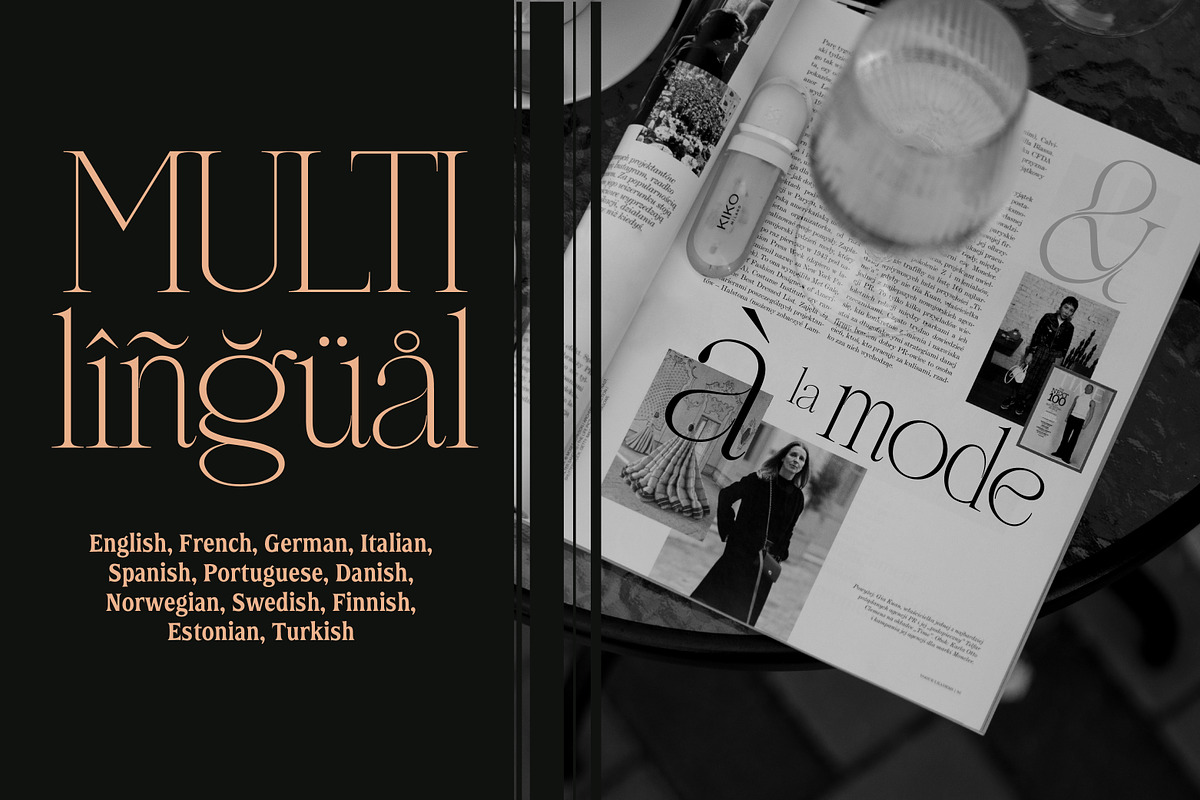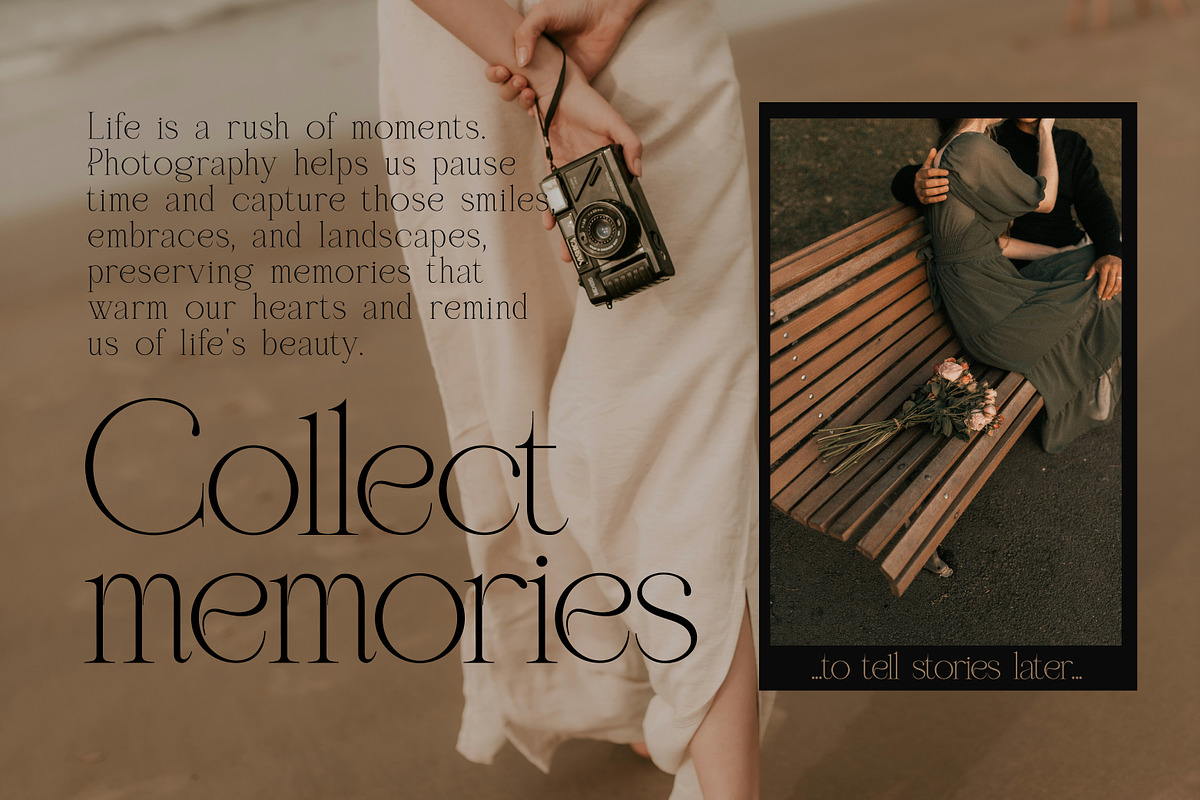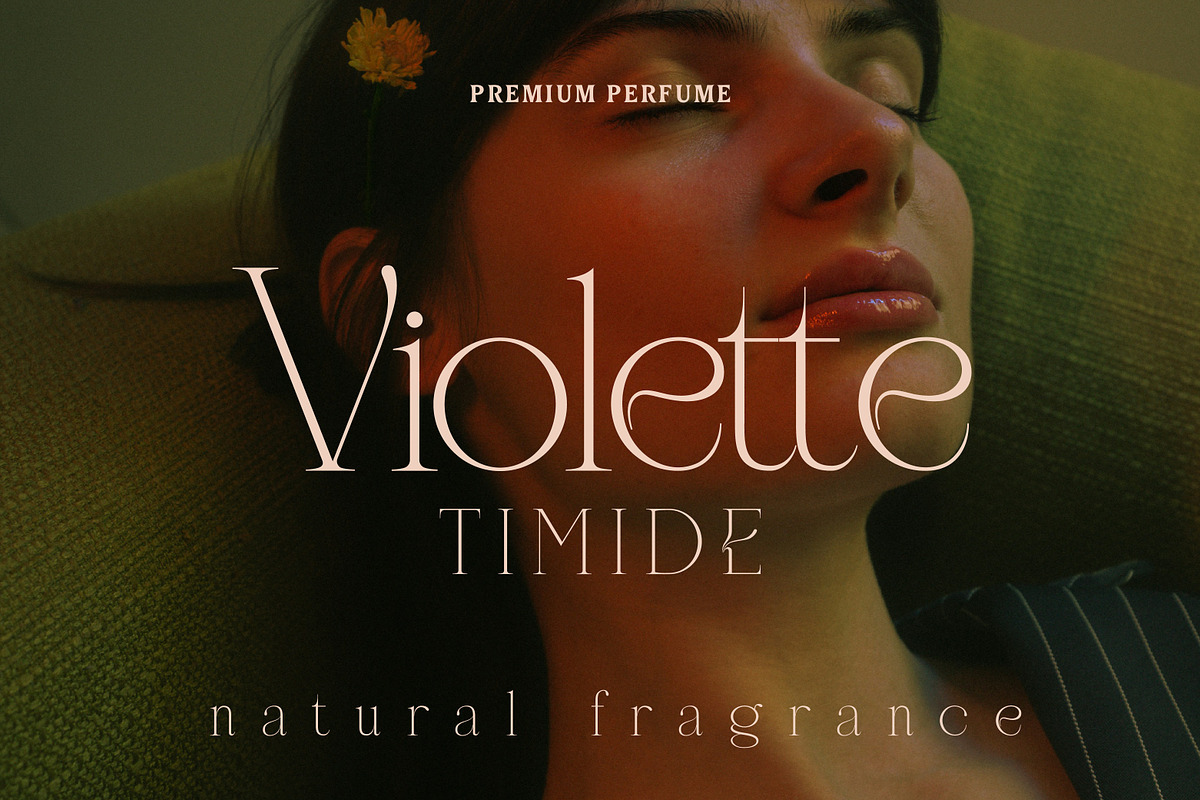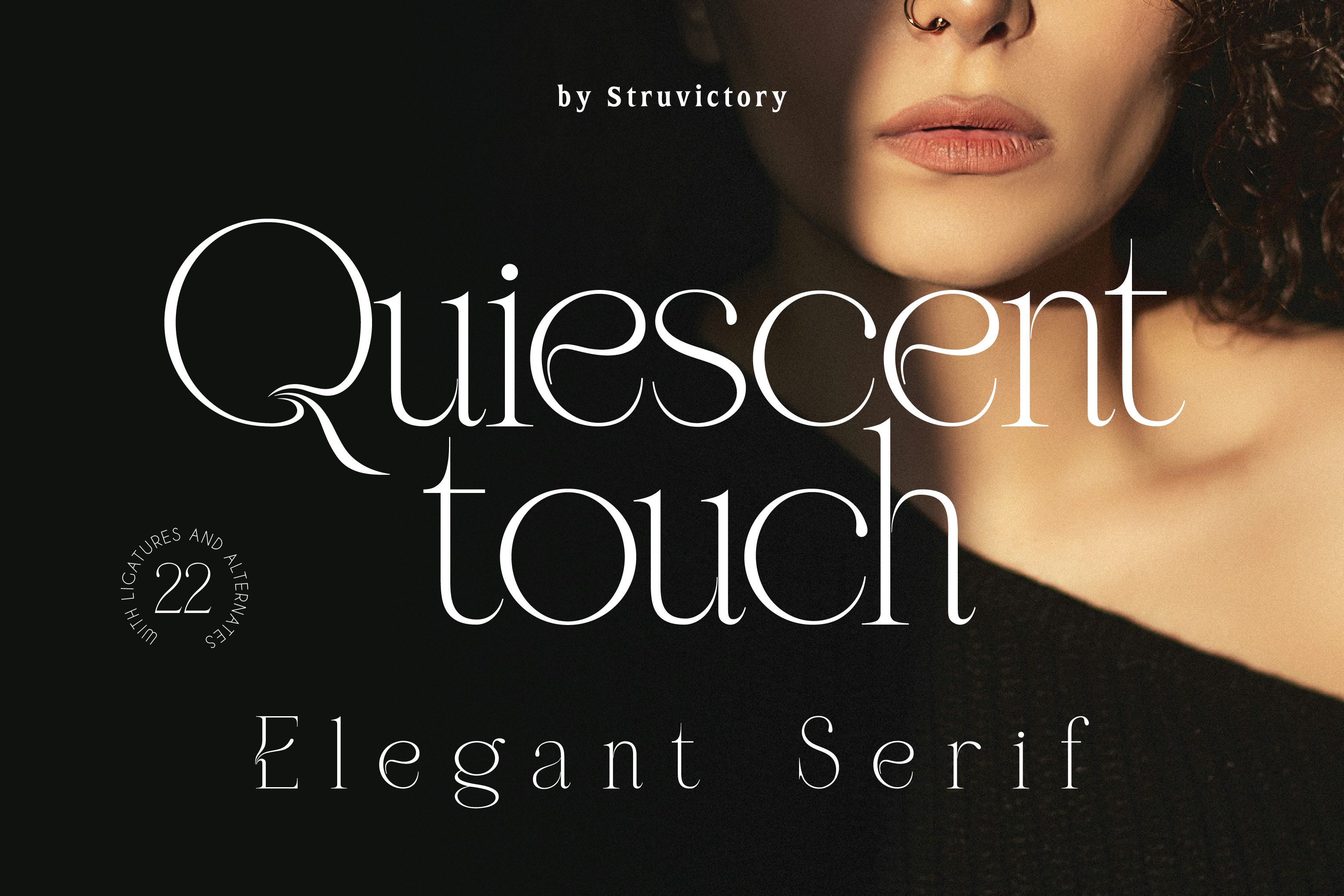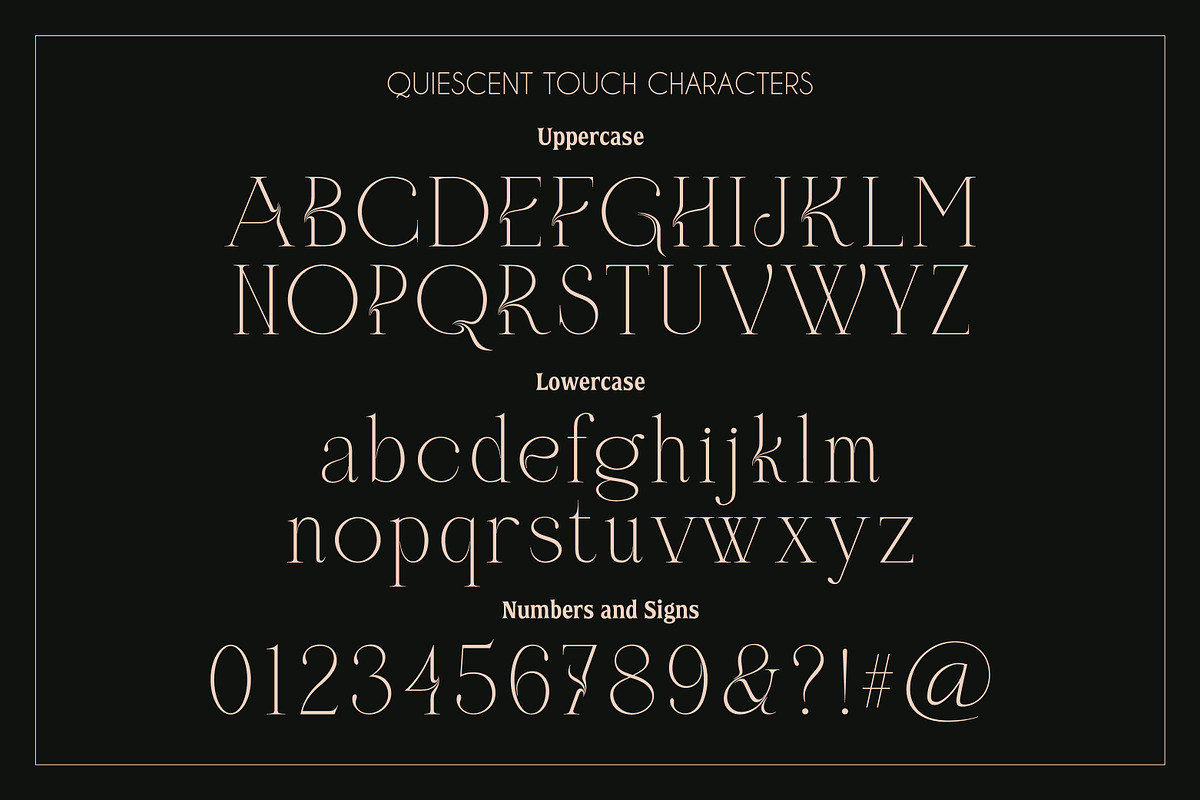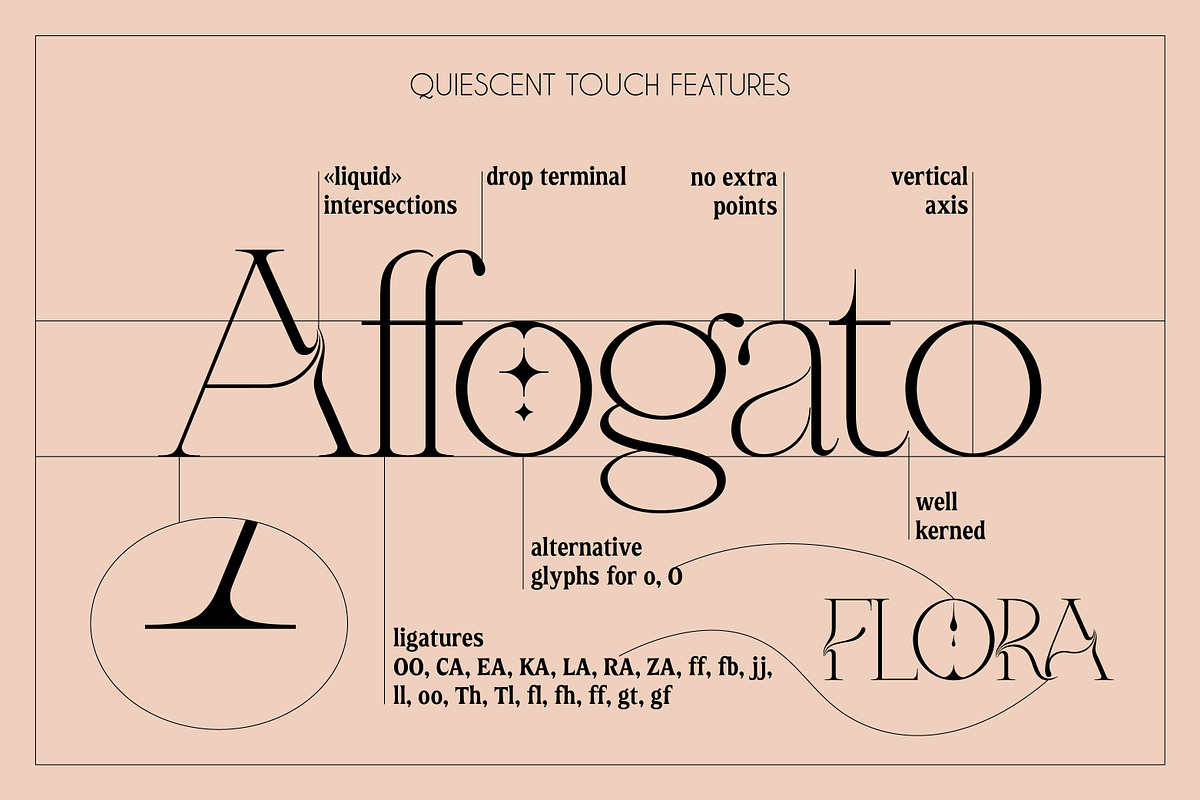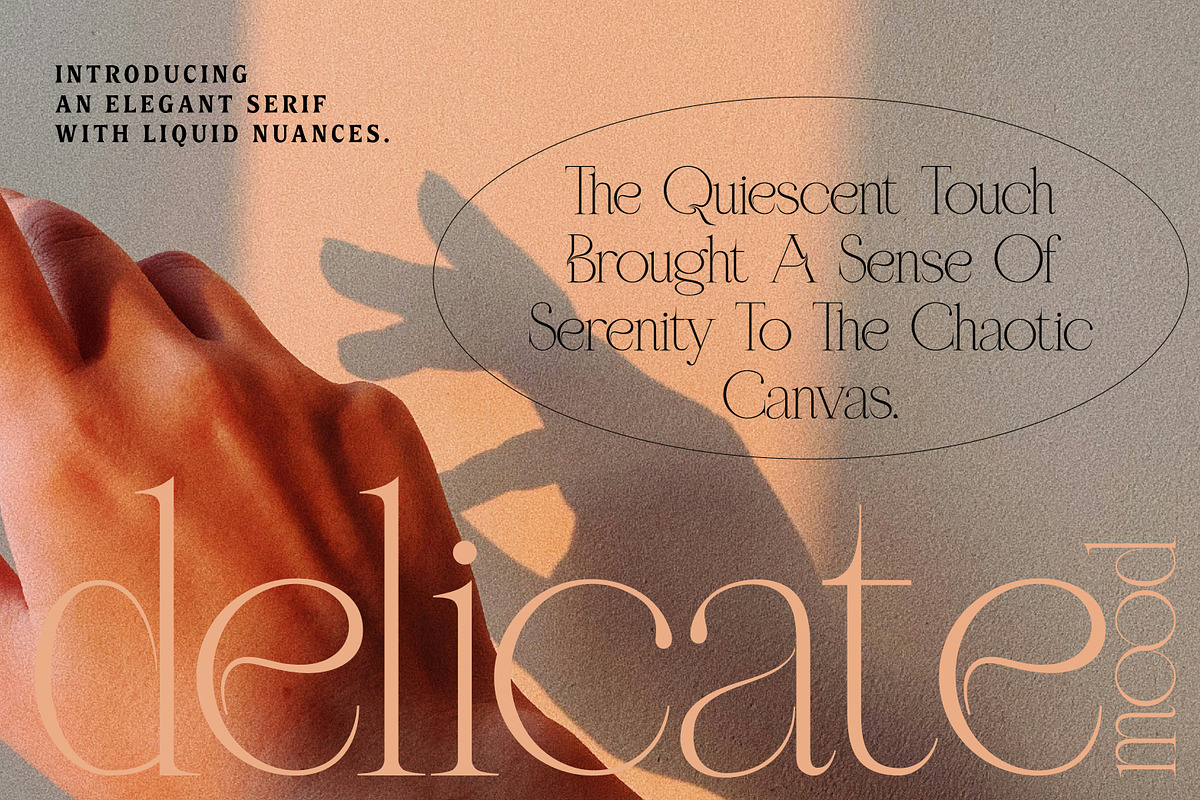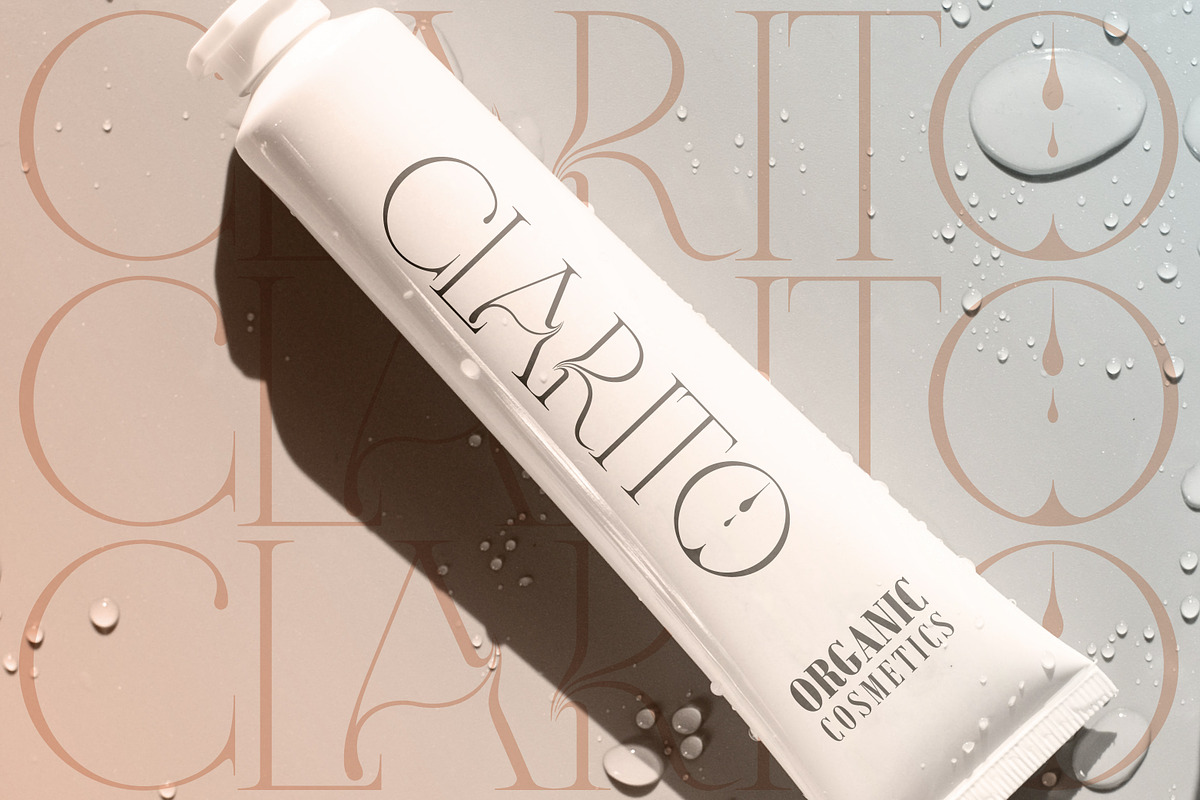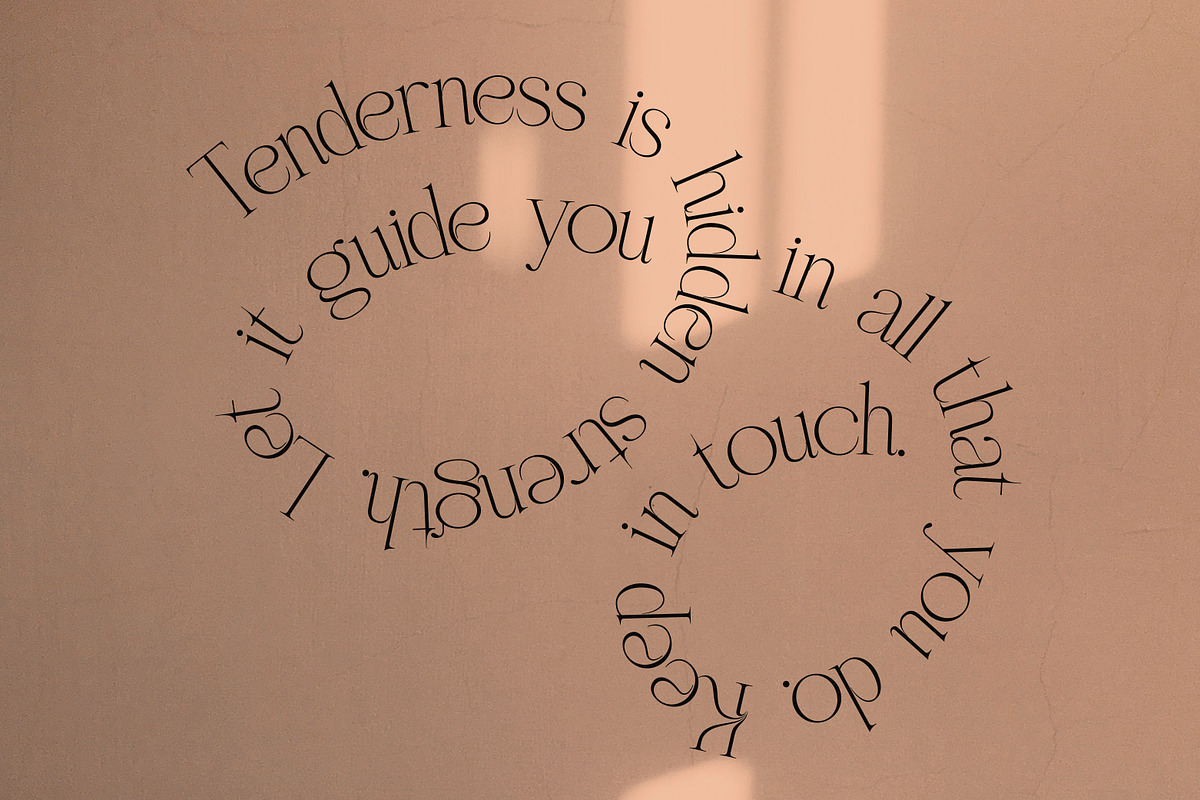
Quiescent Touch Elegant Serif Font
Quiescent Touch is a font that exudes the same sophistication and elegance as a flowing ribbon of silk, with fluid nuances that evoke a sense of effortless grace. Our serif font, with its classic beauty and refined details, is perfect for brands that value luxury and style. It will lend an air of timeless charm to your jewelry, cosmetics, perfumes, and wedding invitations, elevating their exclusivity and allure.
For greater expressiveness, Quiescent Touch contains alternative glyphs for o and O, and ligatures OO, CA, EA, KA, LA, RA, ZA, ff, fb, jj, ll, oo, Th, Tl, fl, fh, ff, gt, gf .
The font supports the most popular latin-based languages, you can check the symbol you need by typing a couple of words in the font preview box.